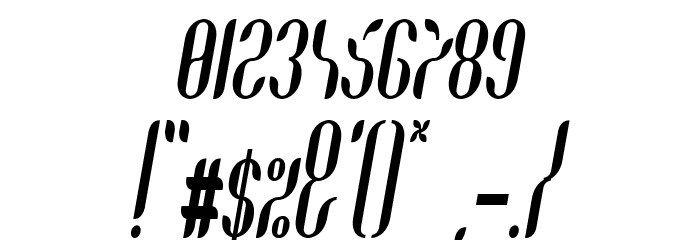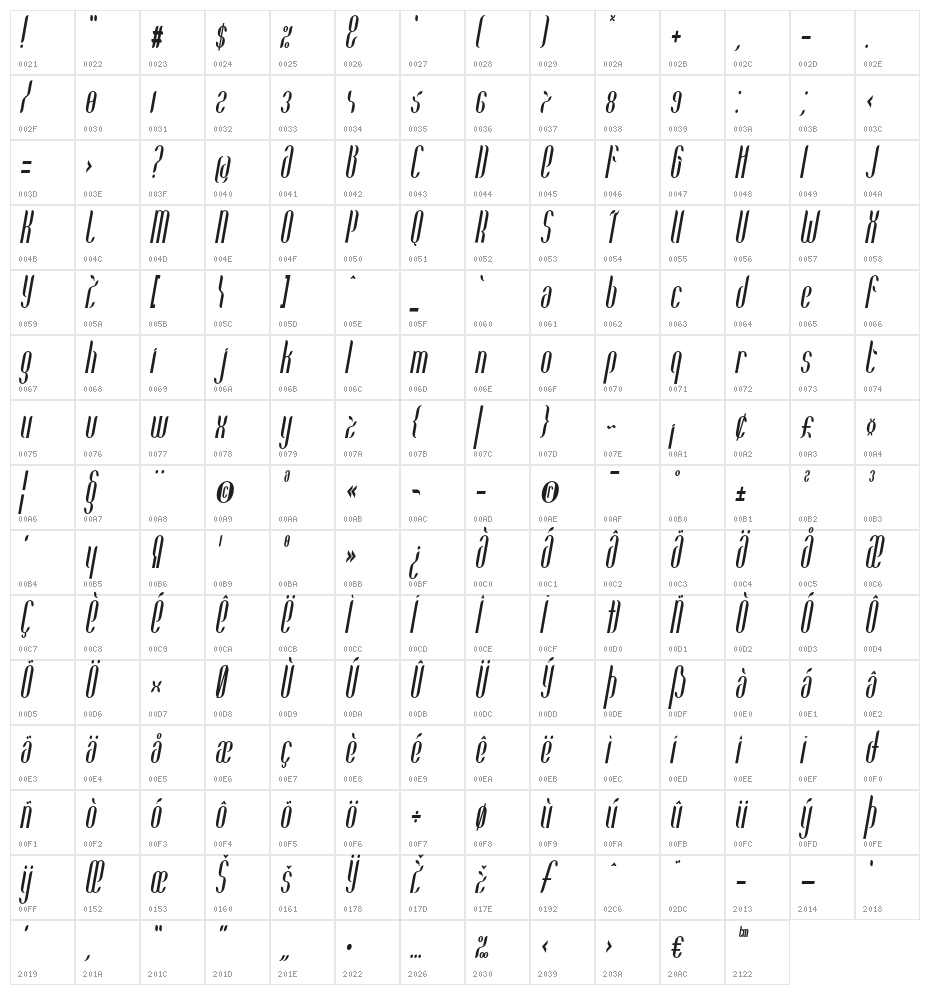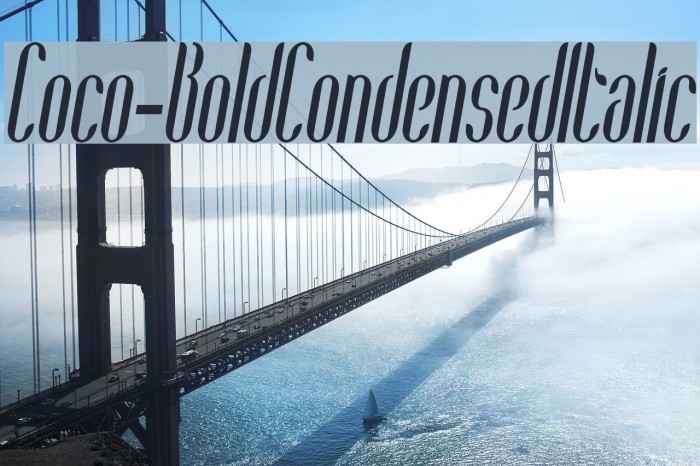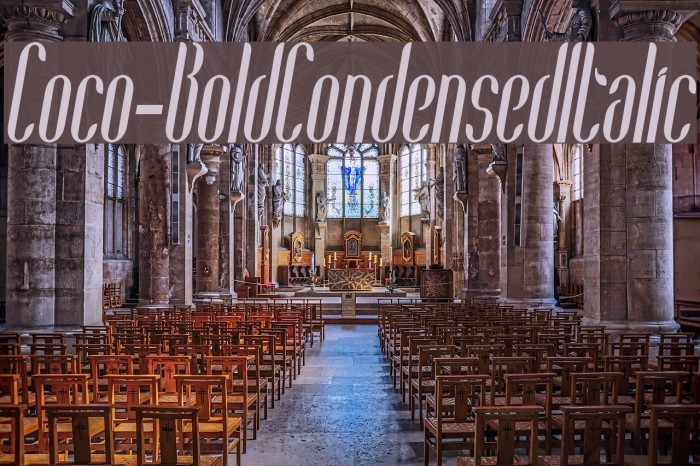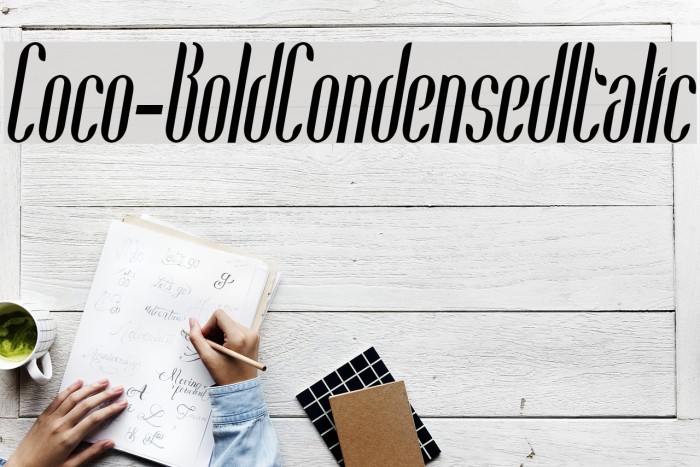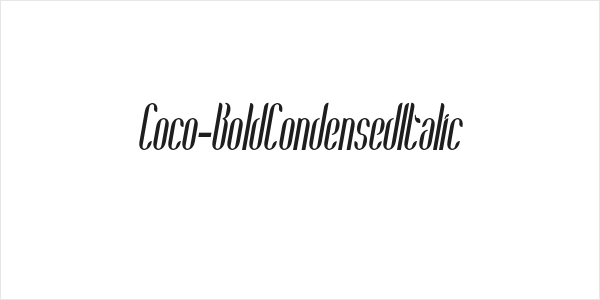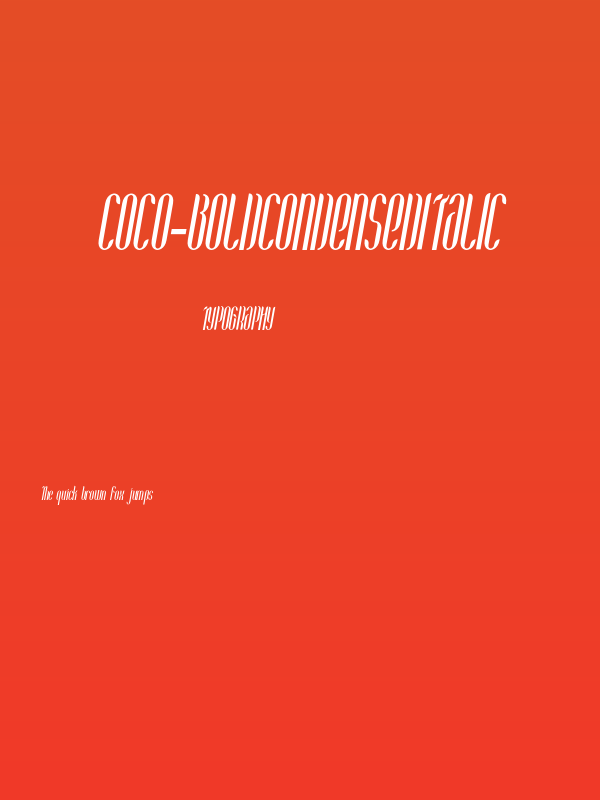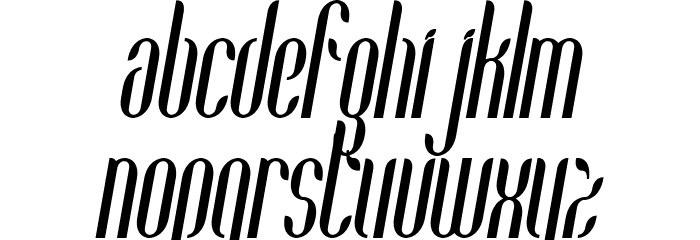
Coco-BoldCondensedItalic Font
Coco-BoldCondensedItalic Description
This font features a bold and condensed style with a distinct italic slant, creating a dynamic and energetic appearance. The characters are elongated with tight spacing, emphasizing verticality and movement. The strokes are thick, providing a strong visual impact, while the italic angle adds a sense of speed and modernity. The design is sleek and contemporary, making it suitable for attention-grabbing headlines and creative projects. The numbers and special characters maintain the same bold and condensed characteristics, ensuring consistency across all elements.
| Proposed Projects | Ideal for branding, advertising, posters, and any design requiring a bold statement. |